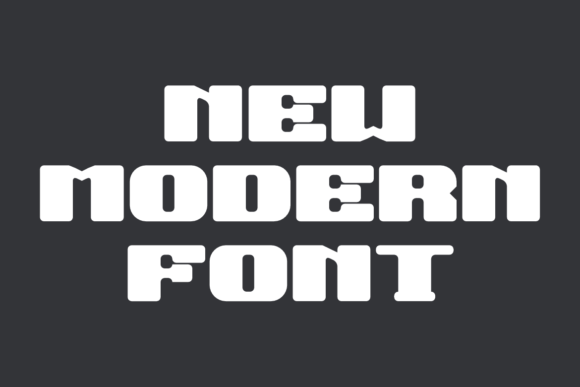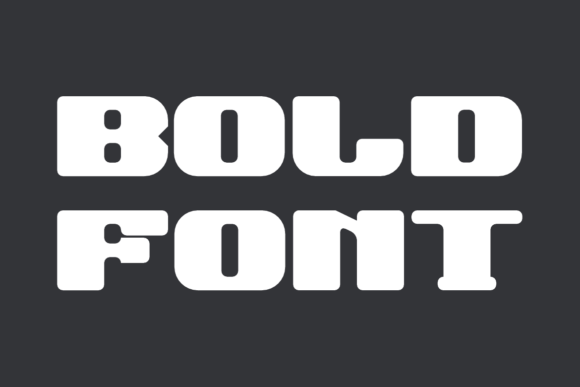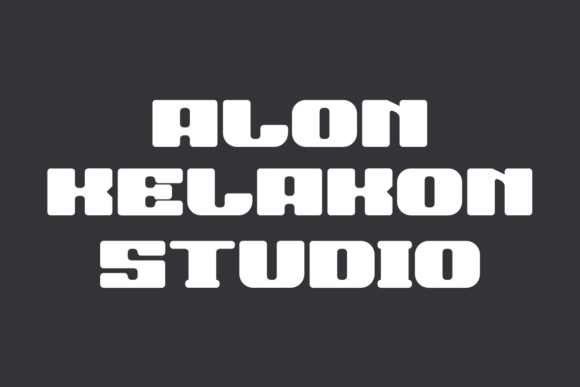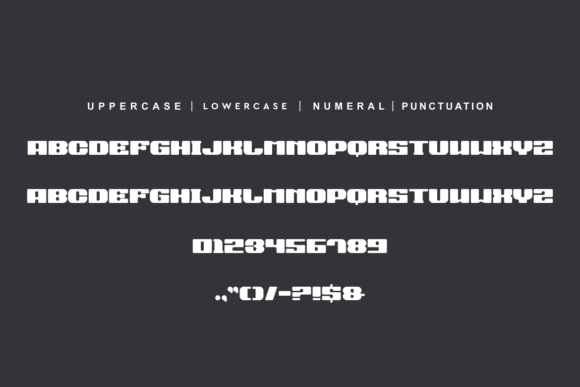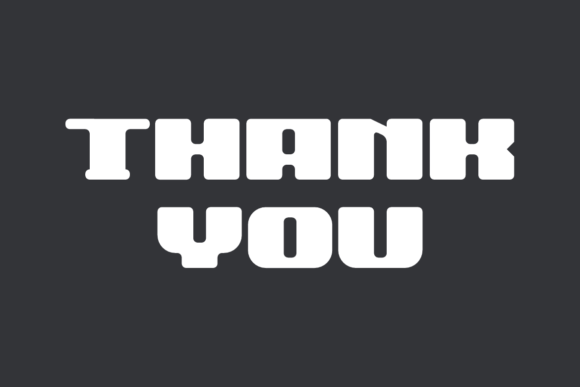
Introducing Glory Shield Font: The Ultimate Sans Serif Powerhouse
In the world of typography, a font can make or break a design. It’s the foundation upon which creativity is built, and the right choice can elevate a project from ordinary to extraordinary. For designers and crafters seeking a bold and assertive sans serif font, look no further than Glory Shield. This stunning font is poised to become an indispensable asset in your typography arsenal, capable of transforming any creation into a masterpiece.
The Power of Sans Serif Fonts
Sans serif fonts have long been a staple in the design world, prized for their clean lines, modern aesthetic, and versatility. They’re the perfect choice for projects that demand clarity, sophistication, and a touch of edginess. Glory Shield, in particular, stands out from the crowd with its bold and assertive personality, making it an ideal candidate for a wide range of applications.
What Makes Glory Shield Font So Special?
Glory Shield is more than just a font – it’s a statement piece. Its bold and assertive nature makes it perfect for headlines, titles, and any design element that requires a strong visual impact. Here are just a few reasons why Glory Shield is an incredible asset to your font library:
- Versatility: Whether you’re working on a branding project, a website, or a craft, Glory Shield adapts seamlessly to any topic or theme.
- Impact: The font’s bold and assertive personality ensures that your message is delivered with confidence and authority.
- Legibility: Glory Shield’s sans serif design guarantees crystal-clear readability, even at smaller sizes.
- Uniqueness: With its distinctive character, Glory Shield helps your design stand out in a crowded visual landscape.
Applications for Glory Shield Font
The possibilities are endless when it comes to using Glory Shield. Here are a few ideas to get you started:
- Branding: Create a lasting impression with bold and assertive logos, business cards, and letterheads.
- Web Design: Elevate your website’s typography with Glory Shield, perfect for headings, titles, and calls-to-action.
- Print Design: Make a statement with posters, flyers, brochures, and any other print material that demands attention.
- Crafting: Add a touch of personality to your crafts, such as DIY projects, handmade cards, and art pieces.
Tips for Using Glory Shield Font Effectively
To get the most out of Glory Shield, keep the following tips in mind:
- Pair with contrasting fonts: Combine Glory Shield with a complementary font to create visual interest and hierarchy.
- Experiment with sizes: Play with different font sizes to emphasize certain elements and create a clear visual flow.
- Use color wisely: Select colors that complement the bold and assertive nature of Glory Shield.
In conclusion, Glory Shield Font is a game-changer for designers and crafters seeking a bold and assertive sans serif font. Its versatility, impact, legibility, and uniqueness make it an indispensable asset in any font library. Whether you’re working on a branding project, website, or craft, Glory Shield is poised to elevate your creations and leave a lasting impression. So why wait? Add Glory Shield to your typography arsenal today and unlock a world of creative possibilities!